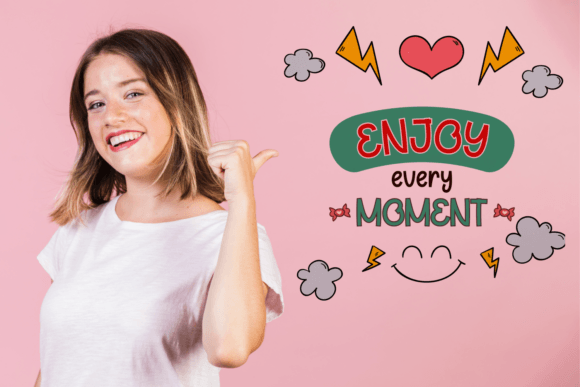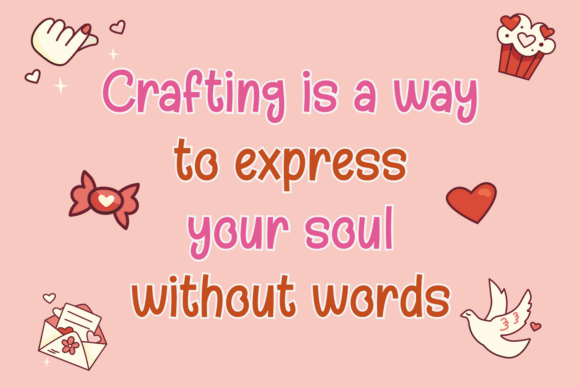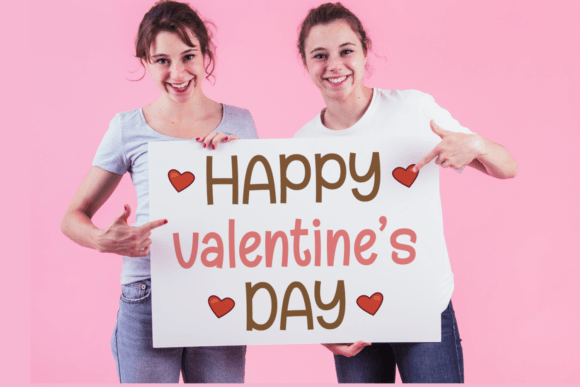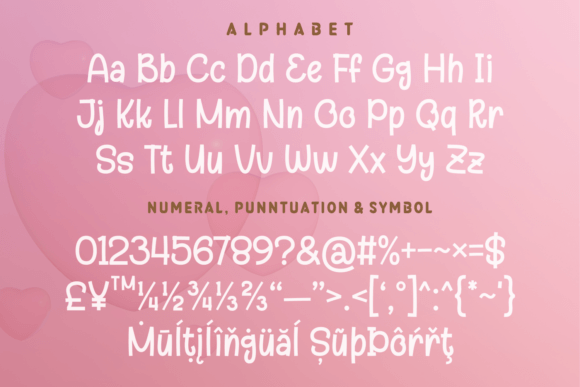
Introduction to Handmade Loveling Font
Introducing a fun and stylish display font that blends playfulness with boldness.
This cute typeface is perfect for romantic occasions like Valentineโs Day, as well as birthdays and kidsโ designs With its cheerful charm, it adds joy to any project.
Key Features of Handmade Loveling Font
Why Choose Handmade Loveling Font?